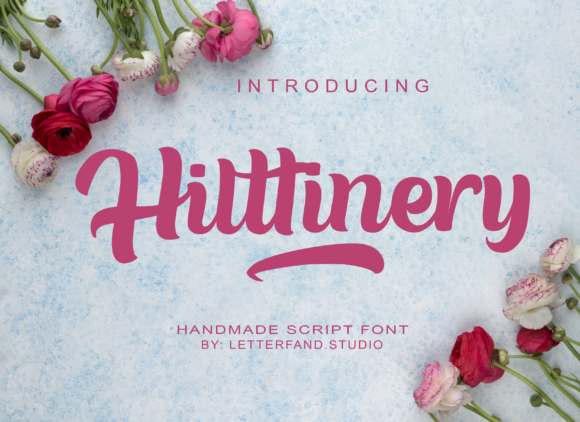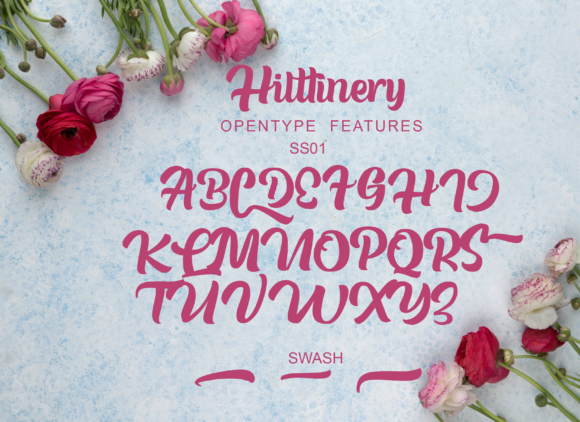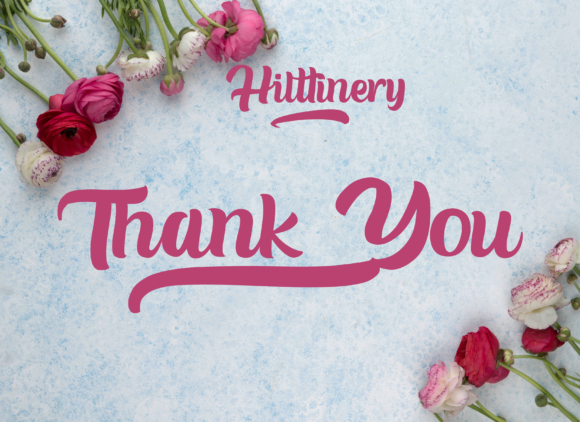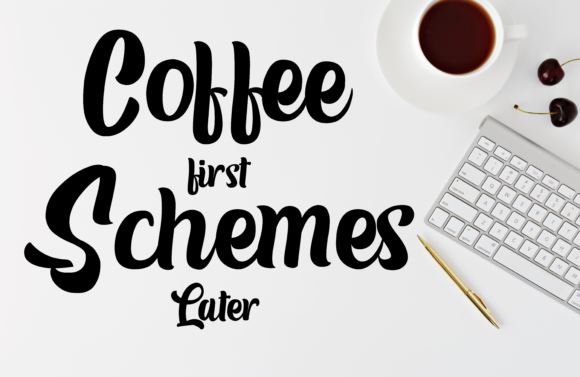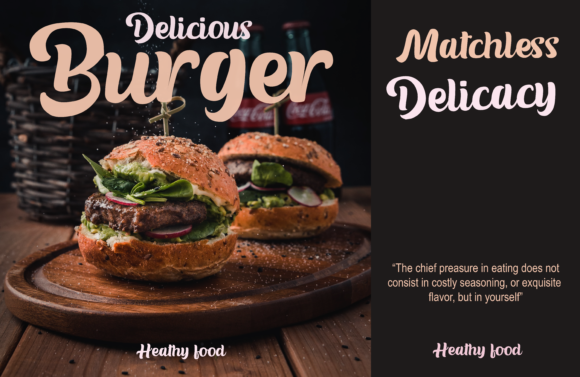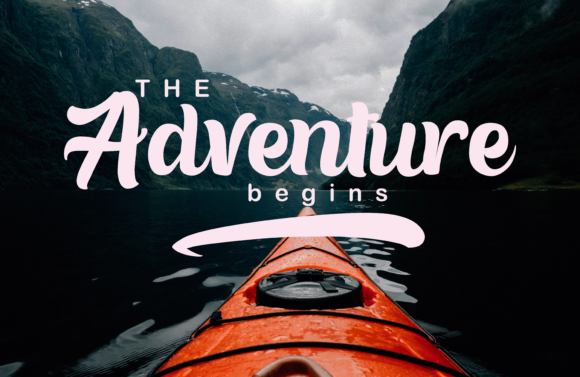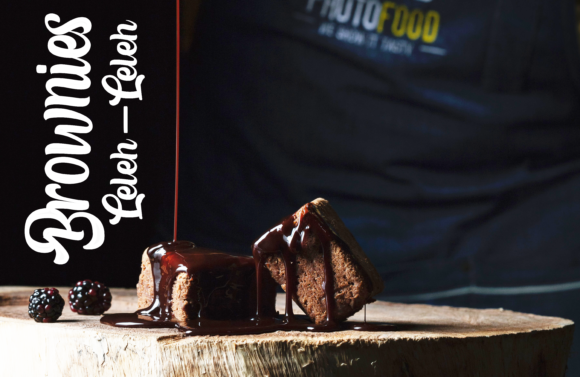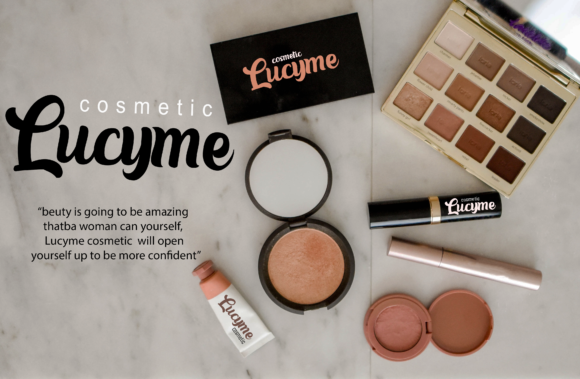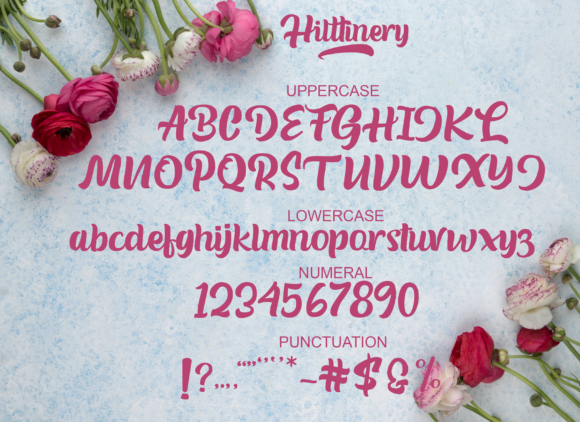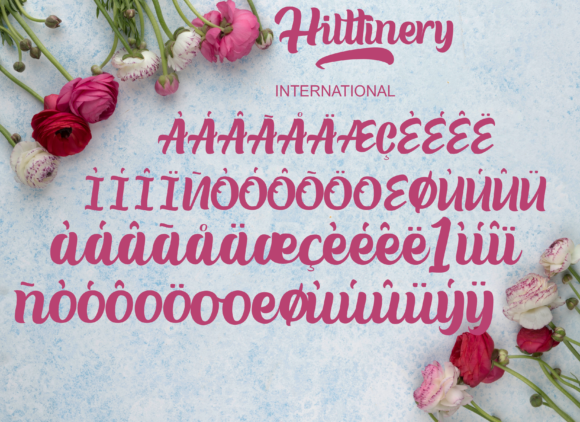
HomeScript FontsHilttinery Font Script Fonts Hilttinery Font FacebookXPinterestWhatsApp Hilttinery Font Poster 2 Hilttinery Font Poster 3 Hilttinery Font Poster 4 Hilttinery Font Poster 5 Hilttinery Font Poster 6 Hilttinery Font Poster 7 Hilttinery Font Poster 8 Hilttinery Font Poster 9 Hilttinery Font Poster 10 Hilttinery Font Poster 11 About Hilttinery Font Hilttinery is a handwritten font with bold letters. Use it to add a personal touch to your next crafting project! DOWNLOAD NOW People also explored Manee Font Everlost Font Rampung Font Watermelon Font Planner Font Steel Blue Bella Canvas 3001 Tee Mockup Nice Meet Font The Signage Font Rush Font 335 0 TagsHilttinery Font Previous articleSink Rettha FontNext articleBrittanstone Duo Font LEAVE A REPLY Cancel reply Comment: Please enter your comment! Name:* Please enter your name here Email:* You have entered an incorrect email address! Please enter your email address here Website: Save my name, email, and website in this browser for the next time I comment. Personal Use Free Eloquence Personal Use Free Read more about this font Rosebirth Personal Use Free Read more about this font Squealer Personal Use Free Read more about this font Hello Sarrah Personal Use Free Read more about this font BLOG Top 7 Google Fonts Alternatives for Faster and Privacy-Friendly Web Design (2025) Top 7 Google Fonts Alternatives for Faster and Privacy-Friendly Web Design (2025) When it comes to web typography, Google Fonts has long been the go-to... Free vs Paid Fonts: Why Investing in Premium Fonts Is Worth It 5 Fonts That Will Dominate Design Trends in 2026 Exploring Font Trends